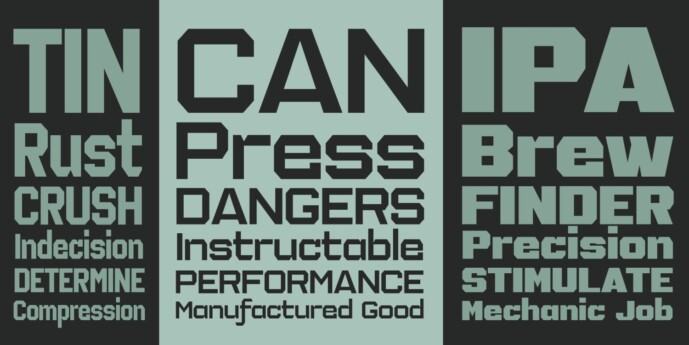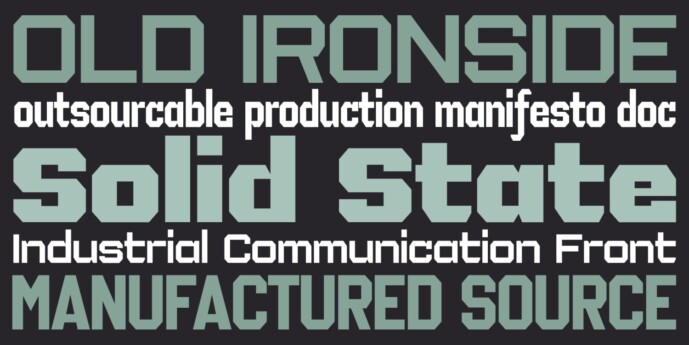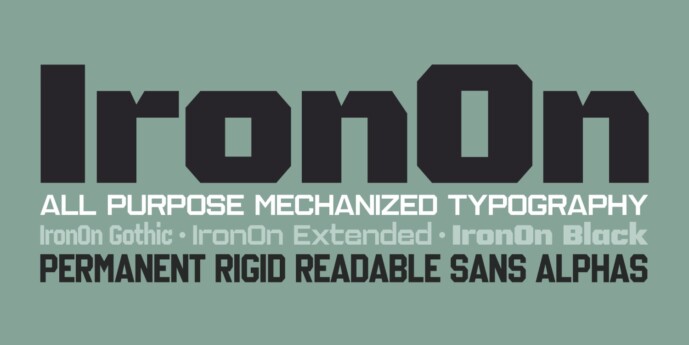
IronOn Font
Designer: Sawyer Hume
The IronOn fonts are a collection of geometric display faces that were inspired by the iron-on t-shirt lettering of the 70s. The original source came from a submitted sample to the MyFonts “What the Font” forums, and while it had similarities to ITC Machine, it could not be tied to any existing typeface. And so, this new geometric sans family was born, exhibiting a more open letterstyle with several weights and widths, with a complete capital and lowercase set, no allcaps set here. Ideal for packaging, T-shirts, advertising, or for industrial applications like signage and newsletter headlines, this powerhouse font family offers a unique rigid flexibility.